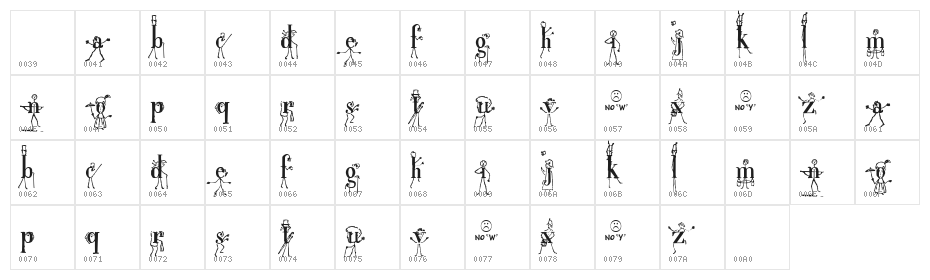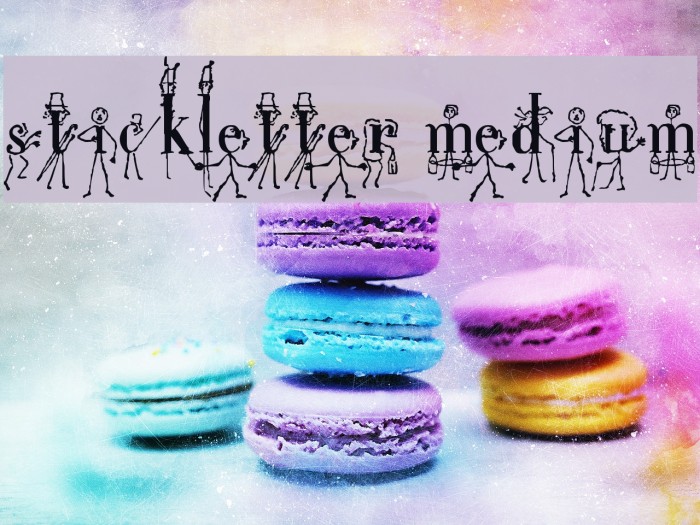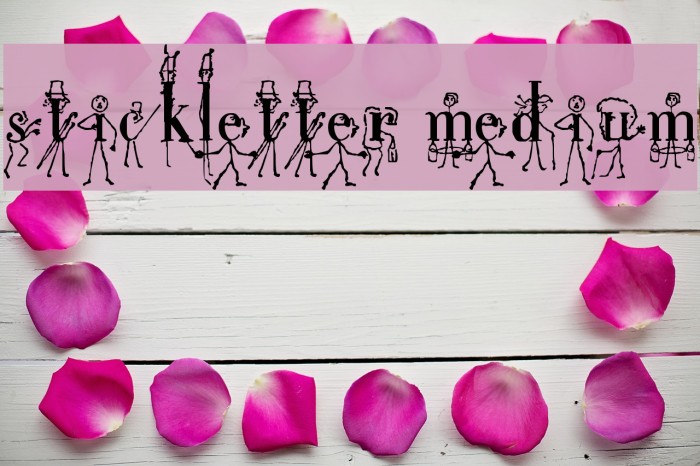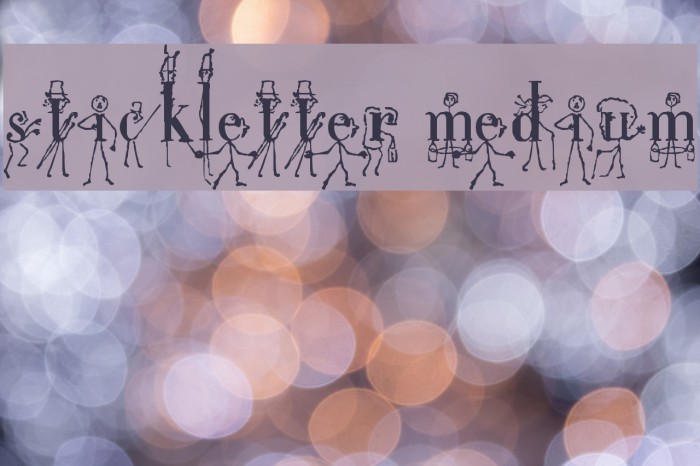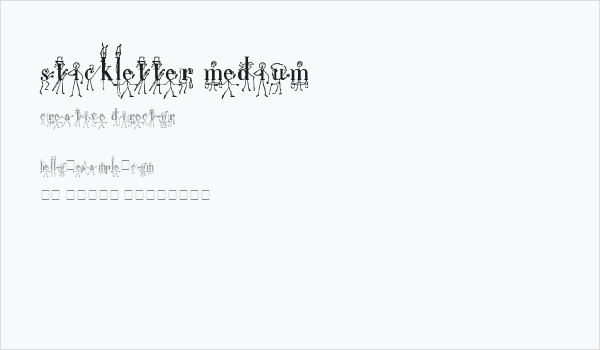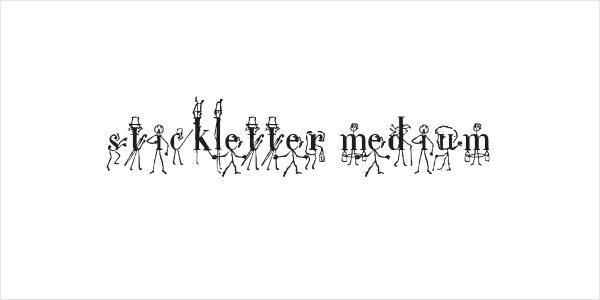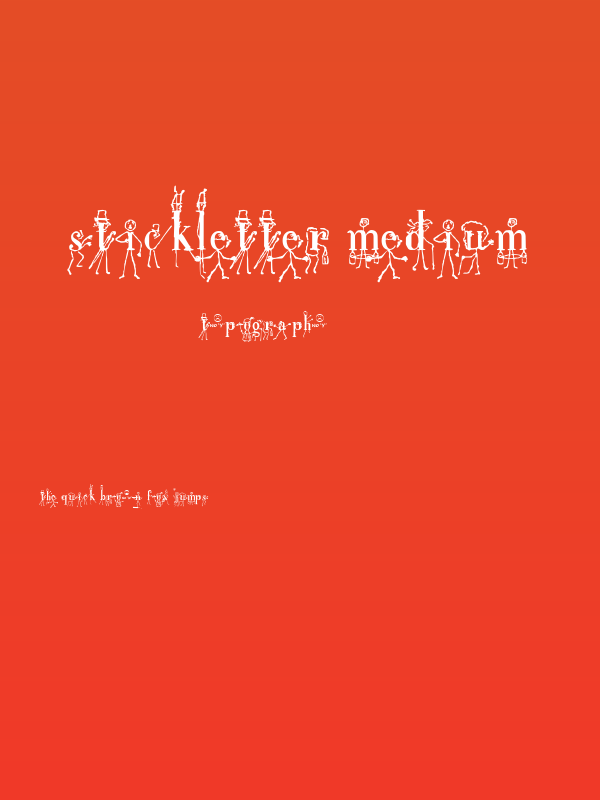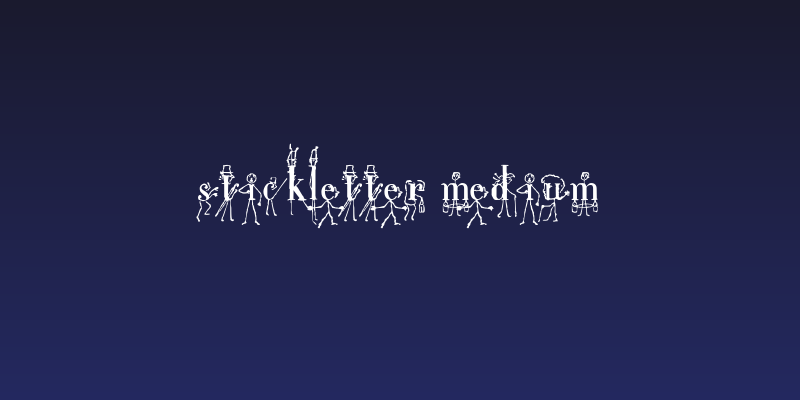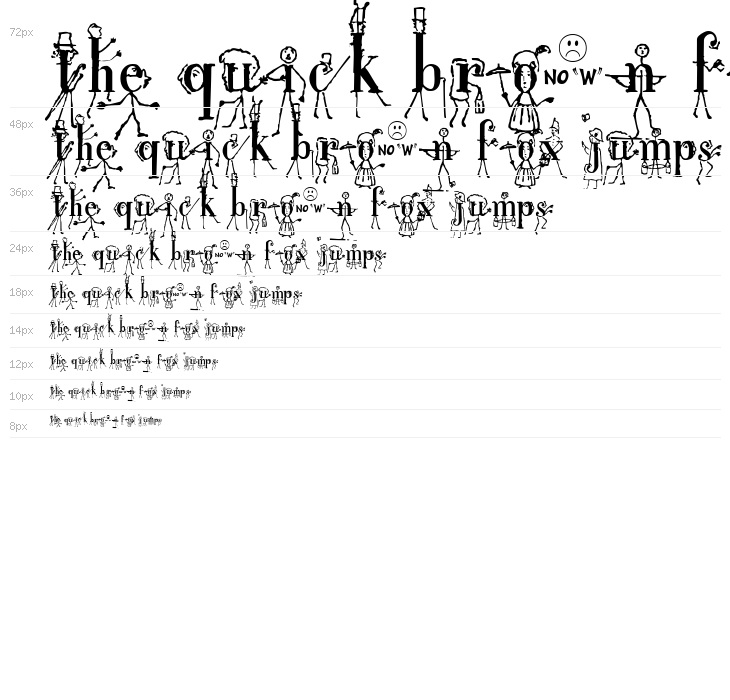
StickLetter Medium Font
StickLetter Medium Description
This font features a playful and whimsical design, where each character is creatively formed by stick figures. The letters are composed of simple lines and shapes, giving them a unique and artistic appearance. The font lacks traditional uniformity, with each character having its own distinct personality and pose. This design choice makes it stand out as a decorative and fun typeface, perfect for projects that aim to capture attention and convey a sense of creativity and humor. The absence of certain characters like 'W' and 'Y' adds to its quirky charm, making it suitable for informal and lighthearted contexts.
| Proposed Projects | Great for children's books, playful posters, creative invitations, and any project needing a fun and artistic touch. |